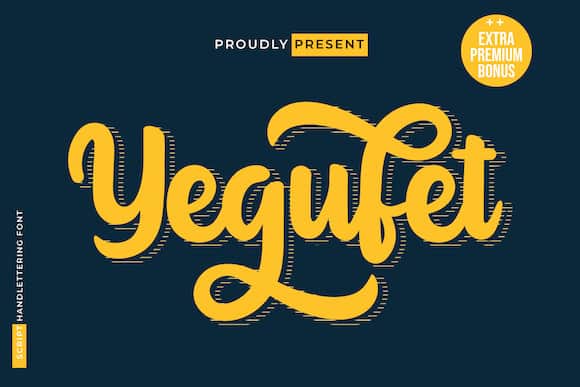
Yegufet Script Font
Introducing Yegufet Script Font. Made in original handwriting that has a young, powerful, and energetic character, of course, it is very suitable for use for modern and vintage projects, the beautiful and beautiful letterforms make this font look charming for you to use in any of your design projects.
Yegufet Script Font also offers the beauty of abstract typography harmony for a wide variety of design projects, including natural handwriting in digital form for designs, quote designs, for social media business designs, advertisements, trademarks, food and beverage promotion banners, text, posters, a signature, and all designs require handwriting or whatever design you want.